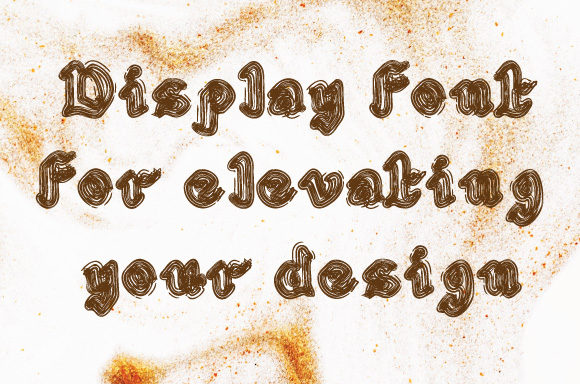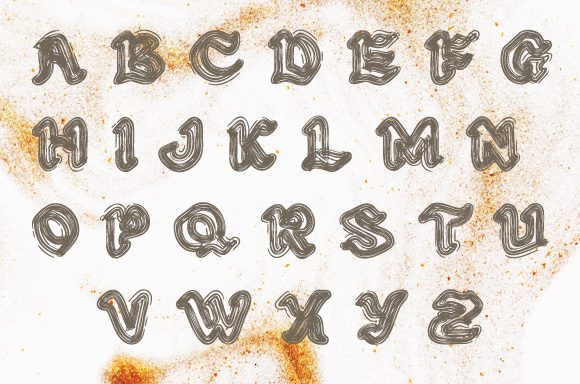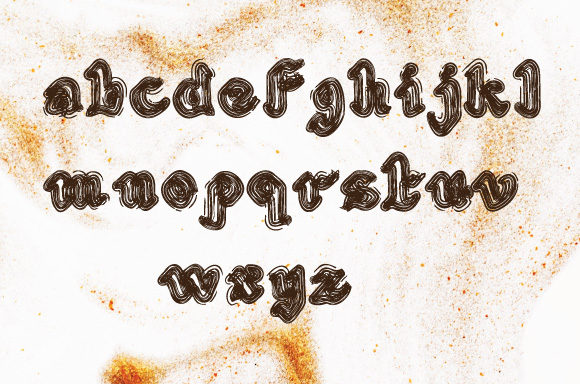
Introduction to Pencil Letter Font
Pencil Letter is a unique outlined display font, created by using a brush pen.
It will elevate a wide range of design projects to the highest level, be it branding, headings, logos, labels, and so much more .
Key Features of Pencil Letter Font